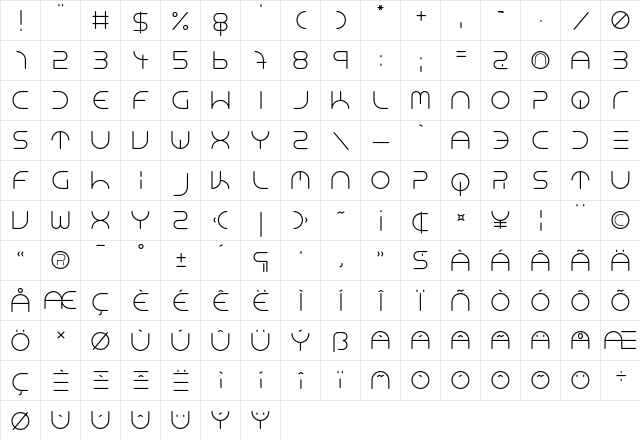
NEON CLUB MUSIC Regular
| Foundry | Manuel Viergutz |
| Designer | Manuel Viergutz |
Design Context for NEON CLUB MUSIC Typeface
NEON CLUB MUSIC has a distinctly futuristic character, with geometric precision and clean angles that feel at home in technology, gaming, and sci-fi contexts.